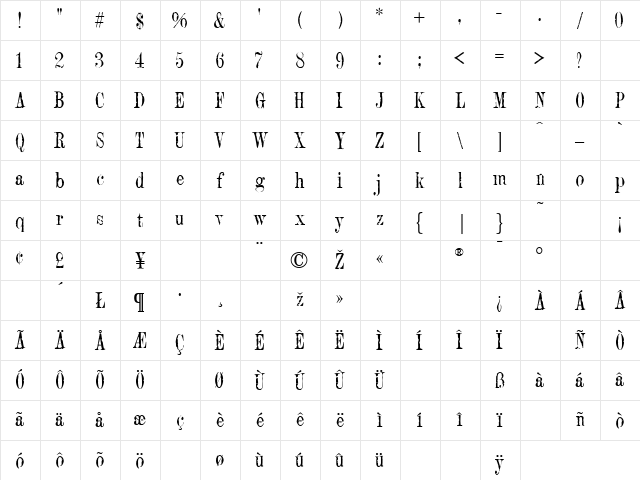
RumpledRoman Regular Free Font
RumpledRoman Regular
Design Context for RumpledRoman
RumpledRoman is a composed and adaptable typeface that performs quietly and consistently across a wide range of design contexts.